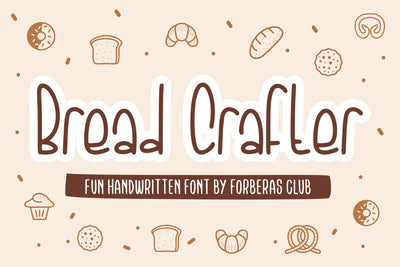
Bread Crafter
Introducing Bread Crafter Font by Forberas Club
Bread Crafter is a Modern Handwritten Font. Bread Crafter perfect for book cover, product packaging, branding project, megazine, social media, skate zine, band font, or just used to express words above the background. This font includes TTF and OTF, This font also multilingual support.